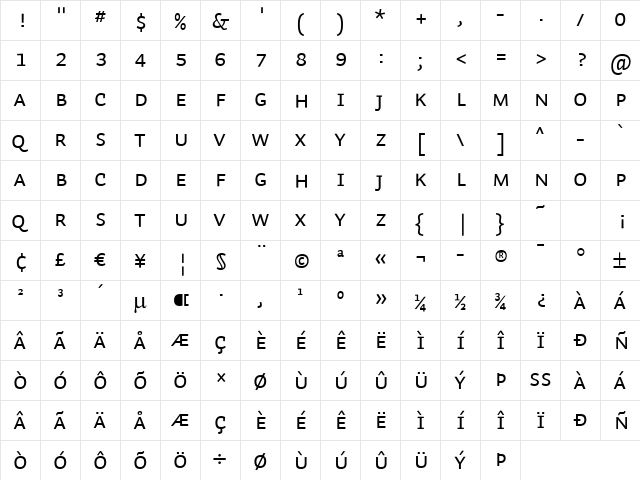
Auto 2 Regular SmCp Font Preview
Auto 2 Regular SmCp
Design Context for Auto 2 Typeface
Auto 2 offers clean, dependable letterforms without strong stylistic allegiance, making it a practical choice for designers who need flexibility.